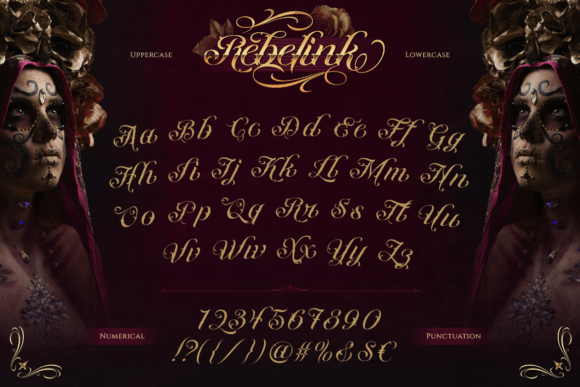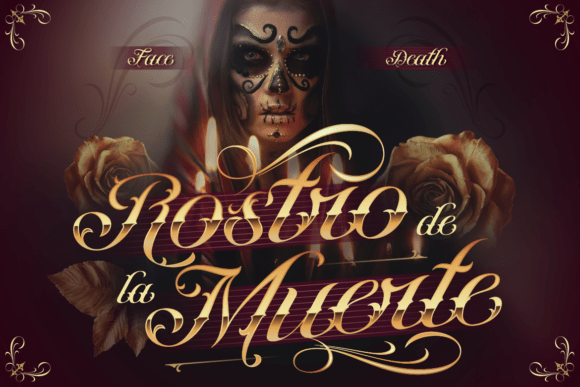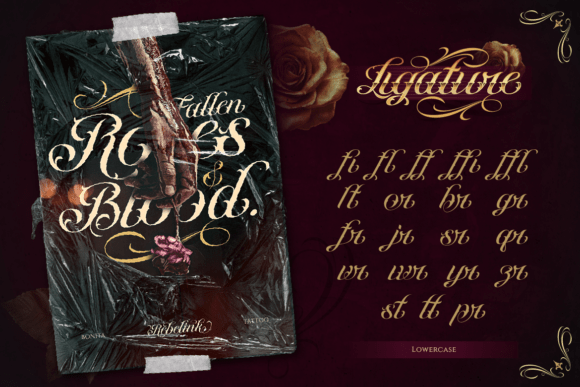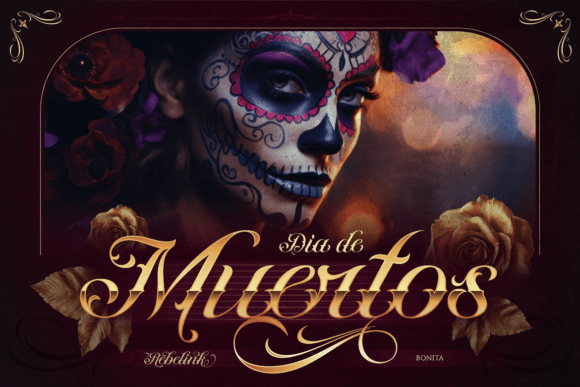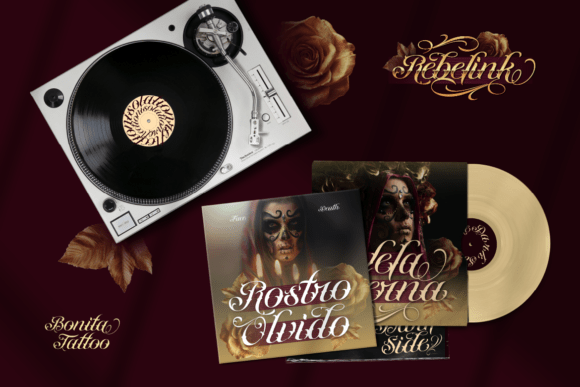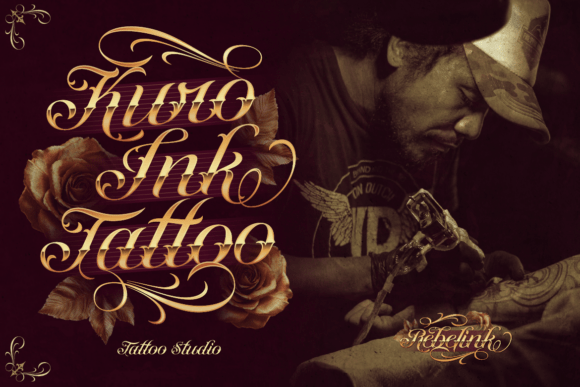
Introduction to Rebelink Font
Have you ever been working on a project and stumbled upon that perfect font that just elevates the entire design? That’s exactly what happened when I discovered the Rebelink Font. Its flowing letterforms, sharp contrast in strokes, and dramatic swashes made it an instant favorite for my creative projects.
As a designer, I’m always on the lookout for high-quality design resources that can help me take my work to the next level. The Rebelink Font is more than just a beautiful script font – it’s a game-changer for anyone looking to add a touch of elegance and sophistication to their designs. With its wide range of stylistic alternates, it’s easy to customize and perfect for display purposes such as tattoo studio logos, band/album covers, or any design with a gothic or Latin-inspired theme.
Key Features of Rebelink Font
- Unique, modern font with a transparent background, ideal for use on various backgrounds.
- Designed to be versatile, suitable for use in a variety of creative projects, from logos to typography-based designs.
- Perfect for designers and artists looking for a unique, high-quality font to elevate their creative projects.
Honest Review: Rebelink Font
I recently had the chance to work with the Rebelink Font and I must say it’s been a great addition to my design resources. This font has a unique, edgy feel to it that’s perfect for creative projects that require a bold statement.
- Rebelink Font has a high quality design that makes it perfect for print and digital use.
- The font has a transparent background, allowing for easy customization and integration with other design elements.
- The font may not be suitable for projects that require a more traditional or conservative look.
Overall, I’m really impressed with the Rebelink Font. It’s a fantastic design resource that can help take your creative projects to the next level. With its unique design, high quality, and free download, it’s definitely worth checking out.
Tips for Getting the Most Out of Rebelink Font
Use the Rebelink Font in conjunction with a transparent background to create a high-quality design resource. This font is perfect for creative projects that require a unique and eye-catching design.
The Rebelink Font is commonly used in creative projects such as logos, business cards, and brochures. It’s also a great design resource for free download and use in your next project.